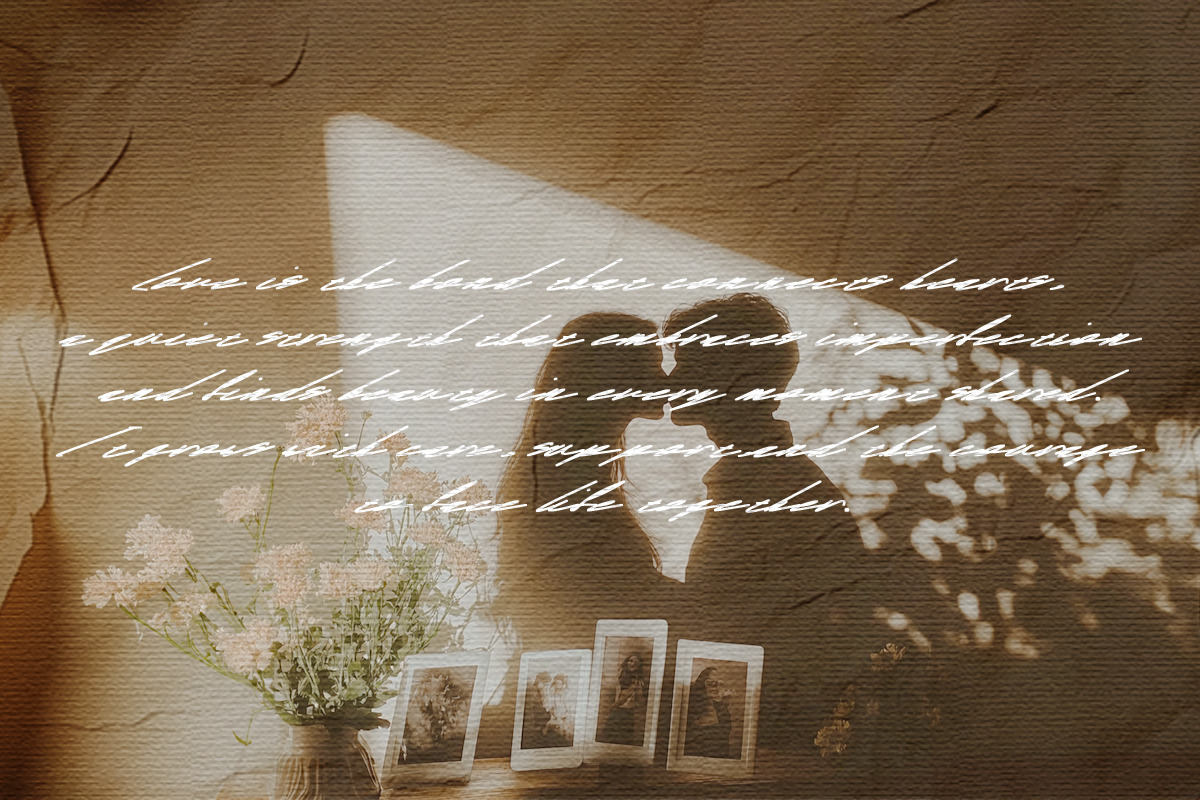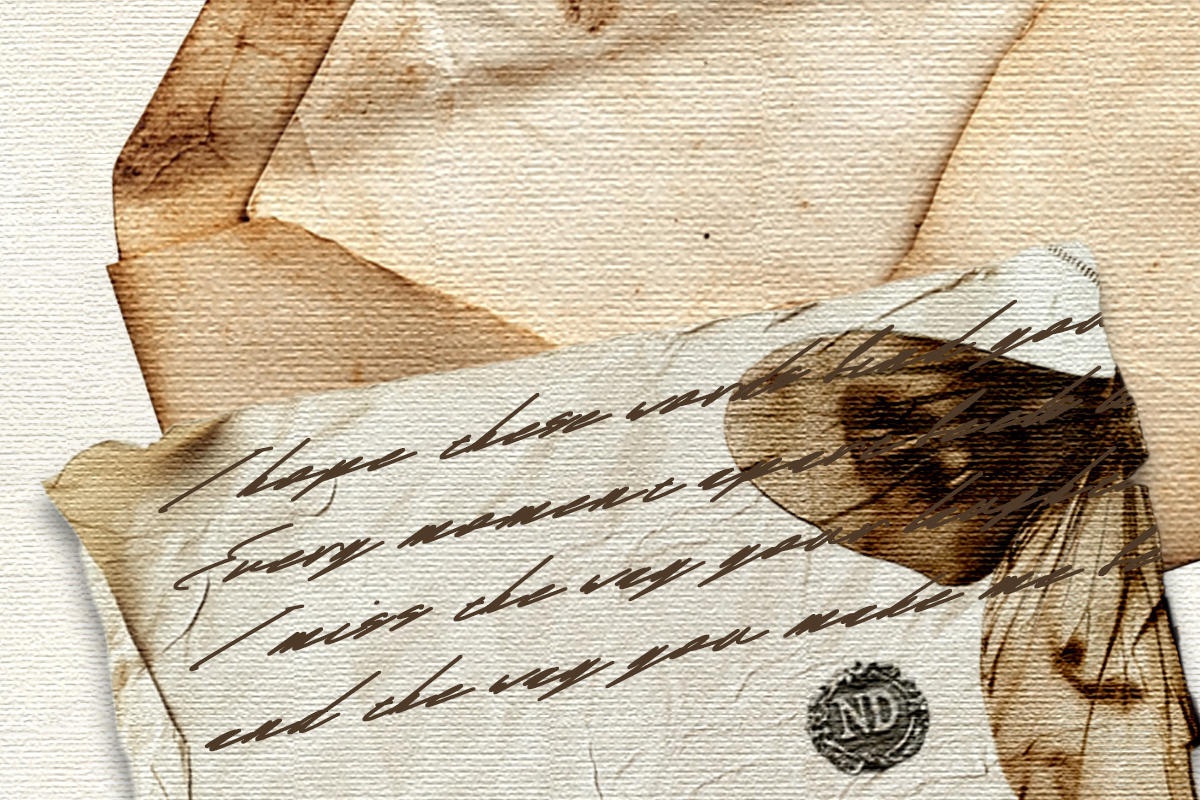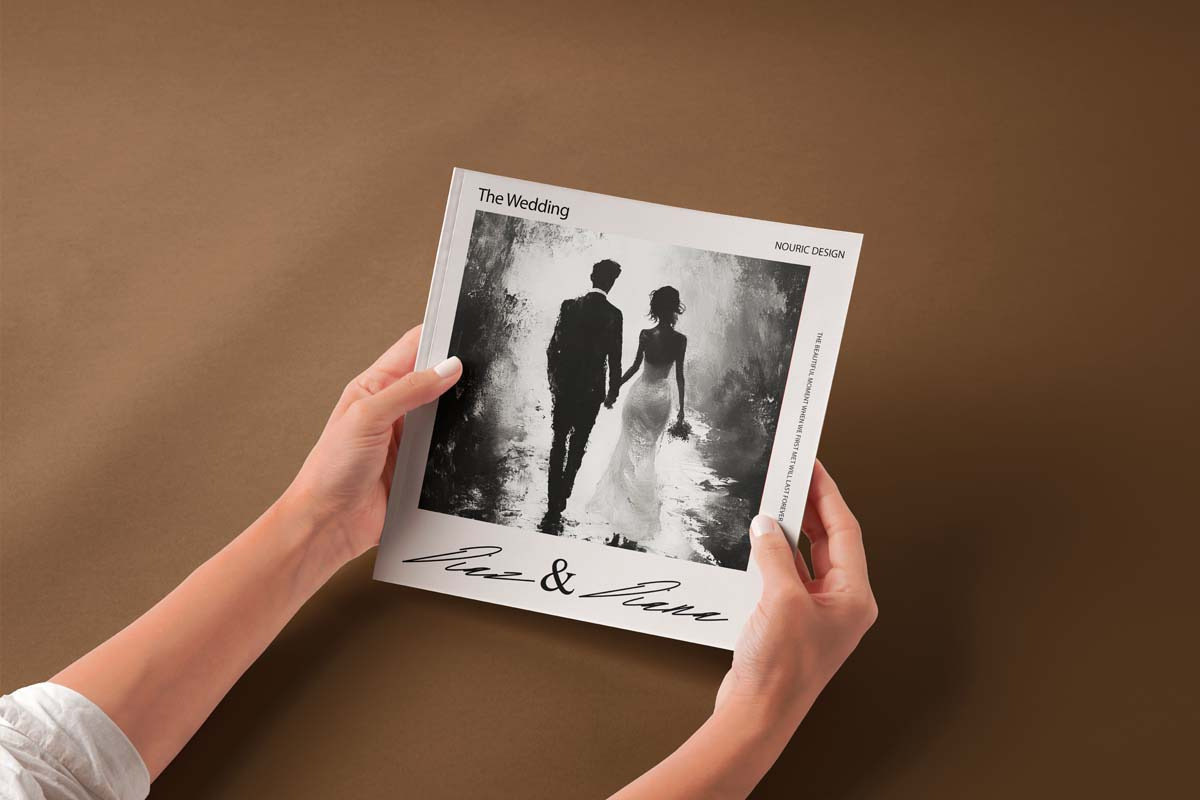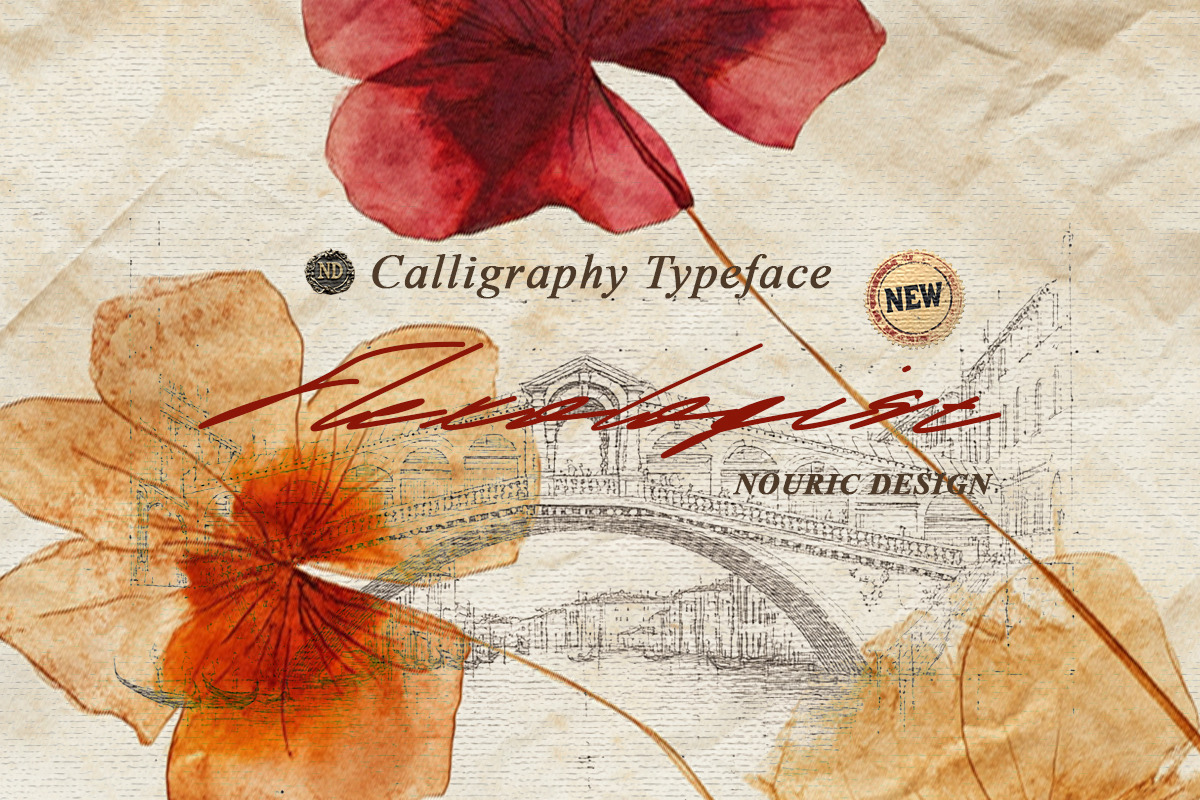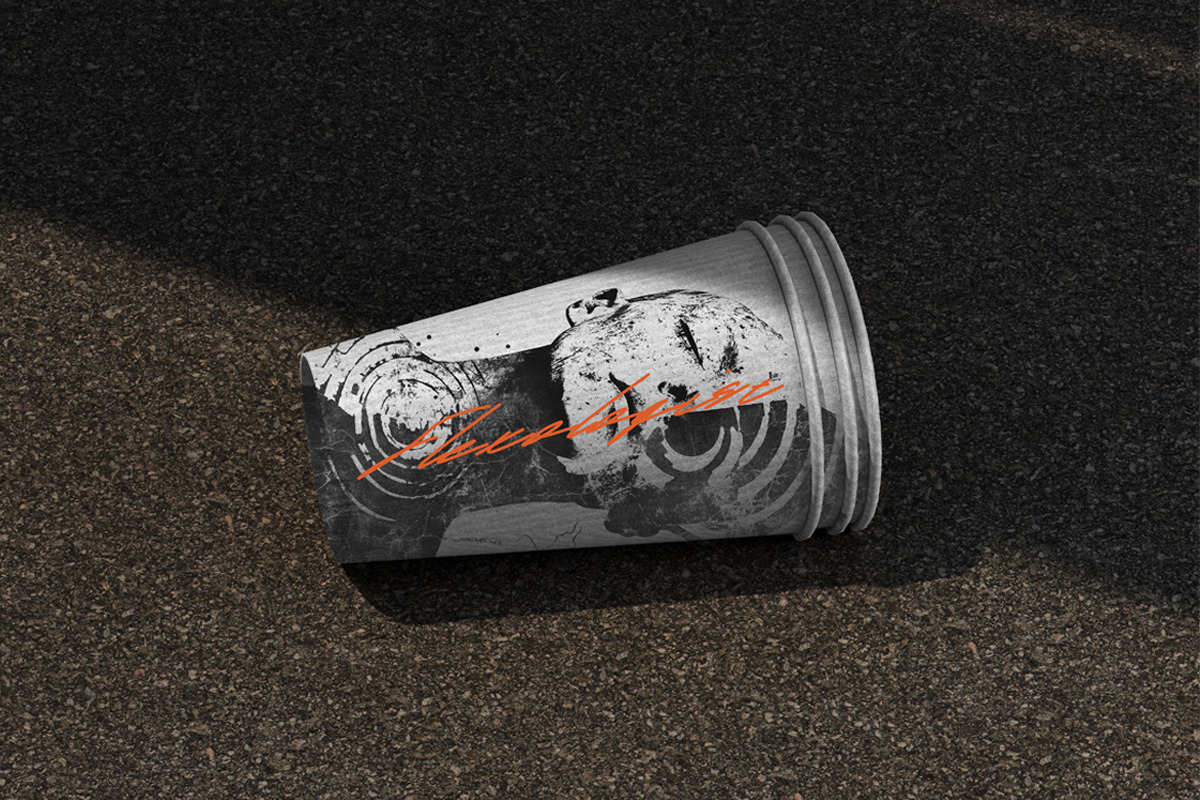
ND Flexologist Handwritten Script
ND Flexologist is a charming casual handwritten font, ideal for adding a personal touch to greeting cards, wedding invitations, photography logos, stylish websites, trendy apparel designs, and so much more!